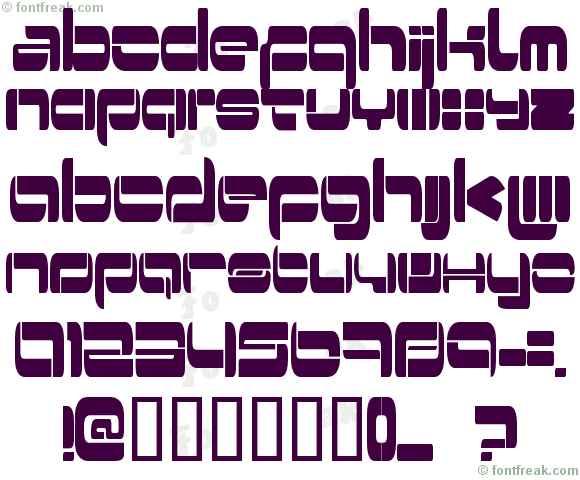
Switzerland
The Switzerland font by 2theleft Typefaces is a striking sans-serif typeface that captures a modern aesthetic with its bold and geometric forms. Characterized by a clean stroke weight and minimal contrast, this font exudes a sense of sophistication and simplicity, making it versatile for various design applications. The even spacing between characters enhances readability, ensuring that the text remains clear and impactful across different mediums.
Switzerland is particularly suited for a range of creative projects. Its contemporary look makes it an excellent choice for branding materials, such as logos and business cards, where clarity and style are paramount. Additionally, this font can elevate the design of restaurant menus, providing a modern touch that aligns with contemporary dining experiences. It's also a fantastic option for event posters, where its bold presence can draw attention and convey essential information effectively. Furthermore, content creators will find it ideal for social media graphics, ensuring that their messages stand out in a crowded digital landscape.
What sets the Switzerland font apart is its ability to blend functionality with modern design sensibilities. Its geometric simplicity paired with a bold aesthetic ensures that it not only serves its purpose but also enhances the overall visual appeal of any project. For those looking to make a statement, the Switzerland font free download is an opportunity to access a high-quality typeface that can transform your creative endeavors.